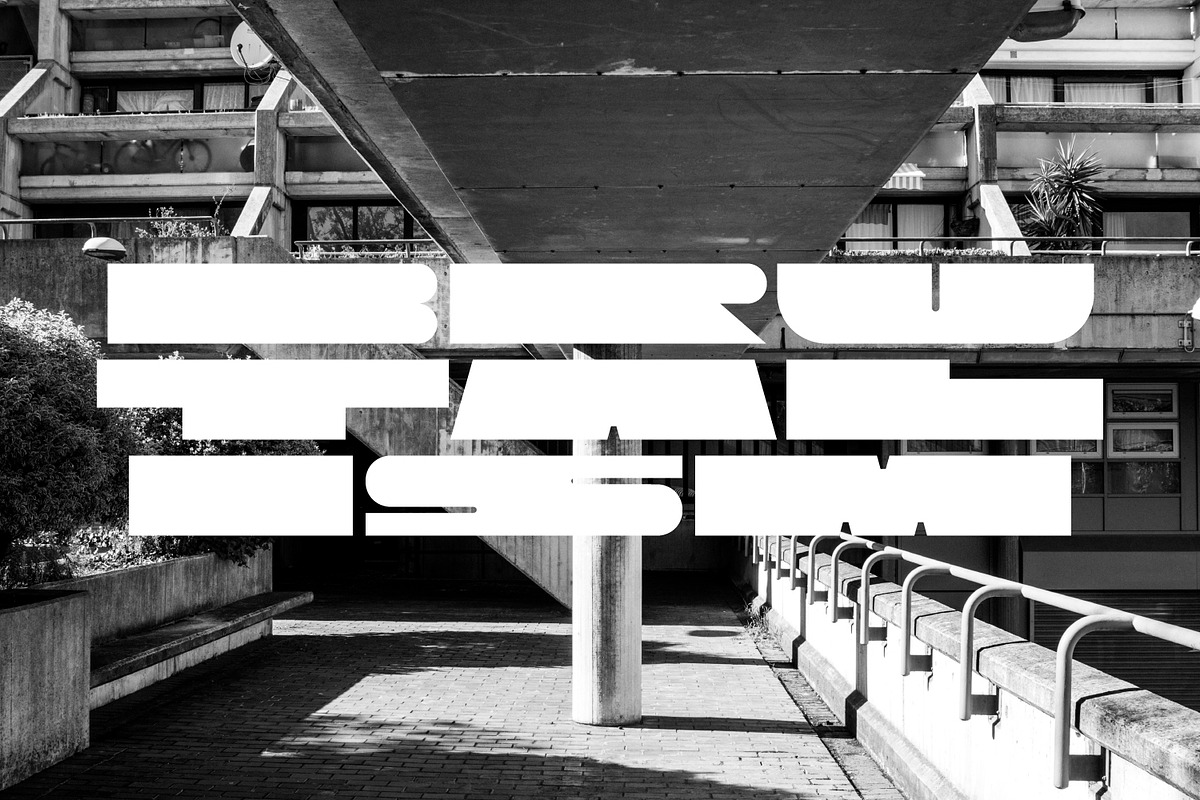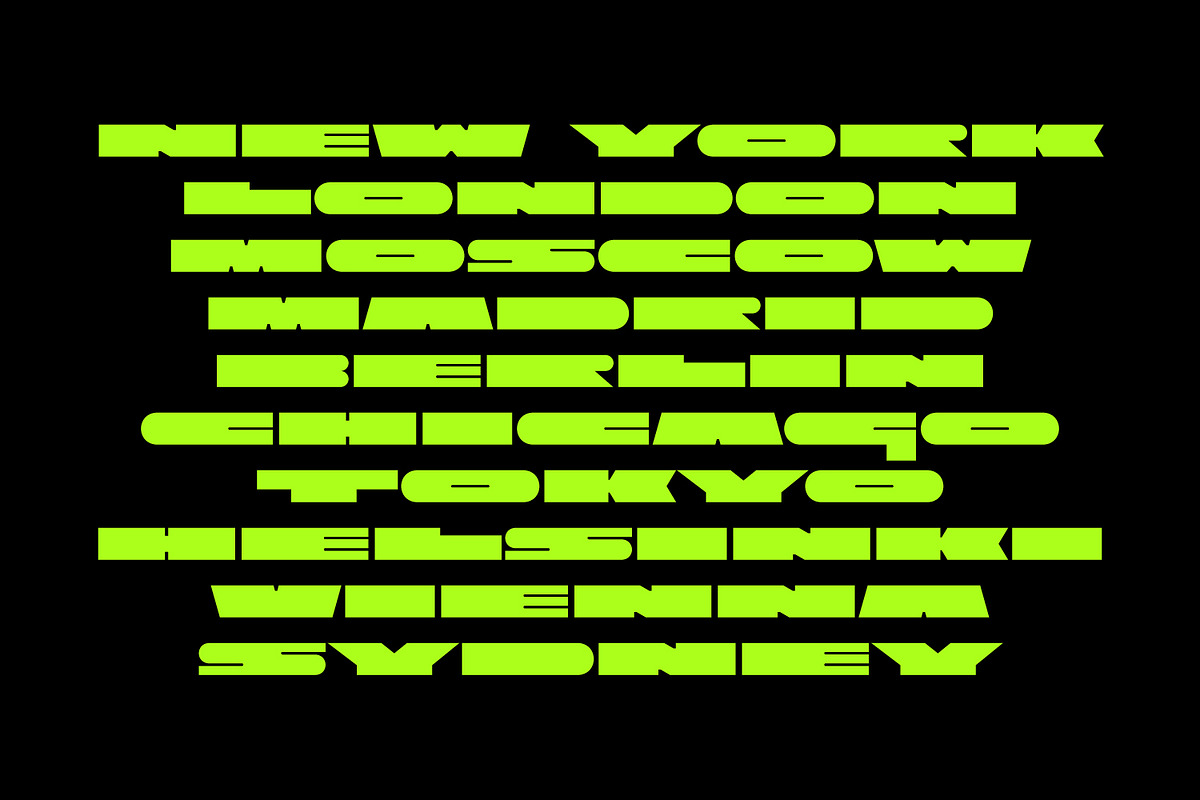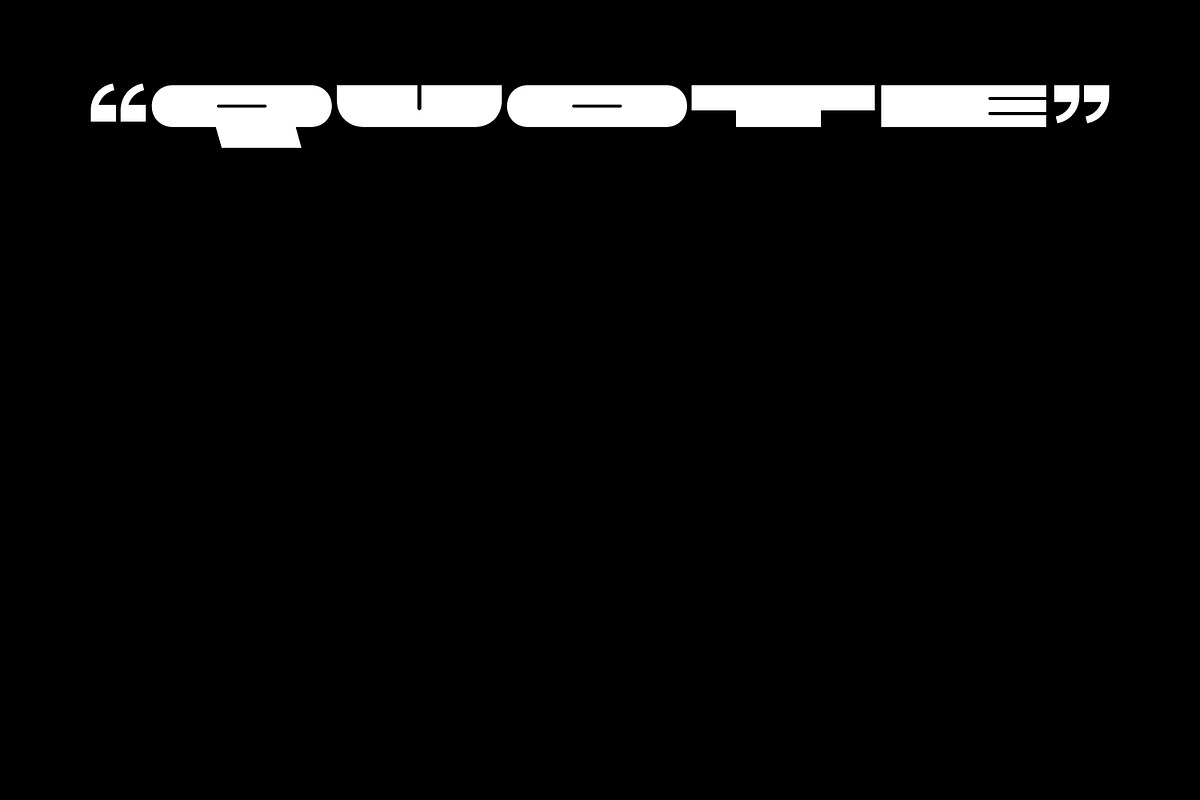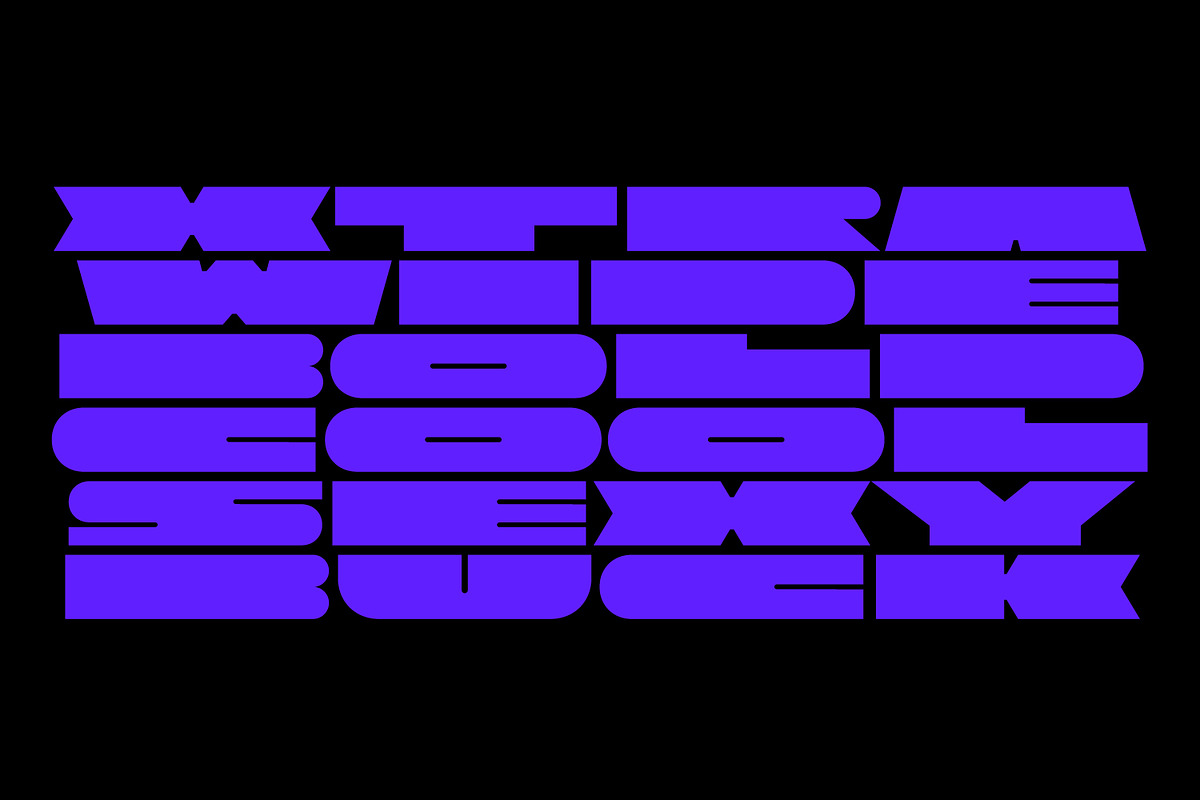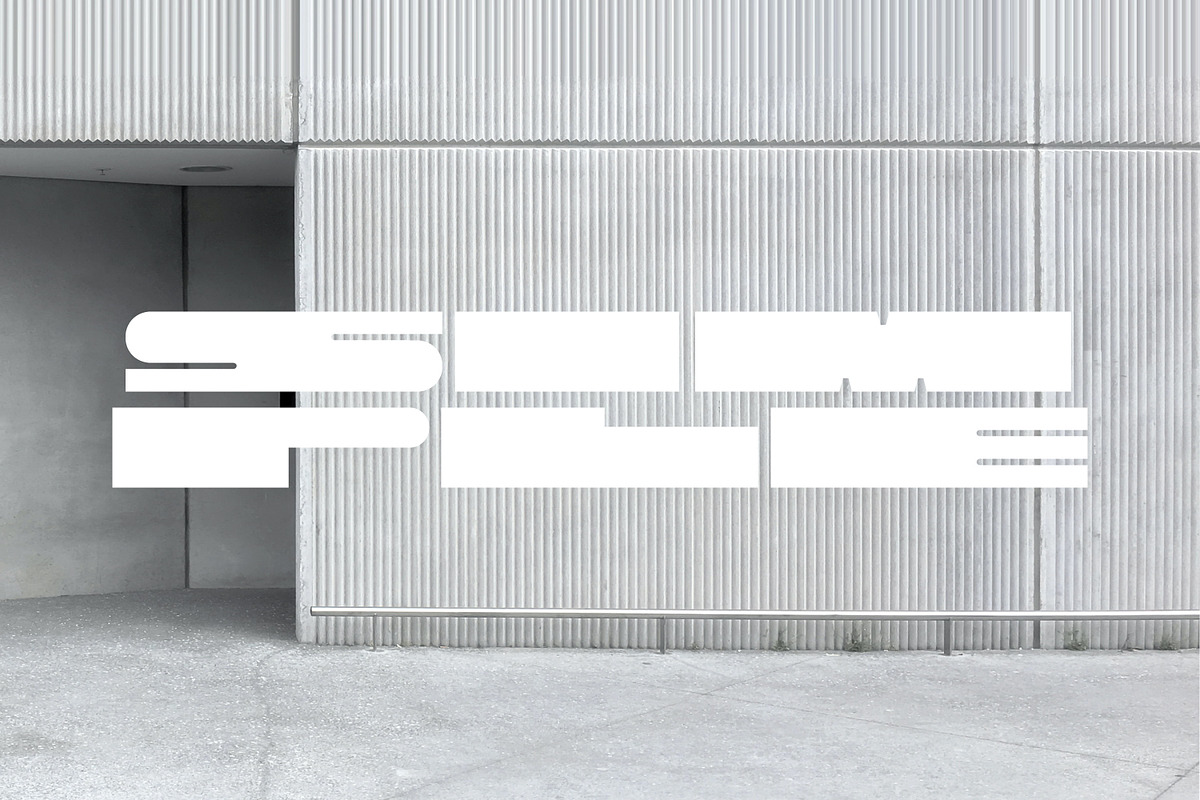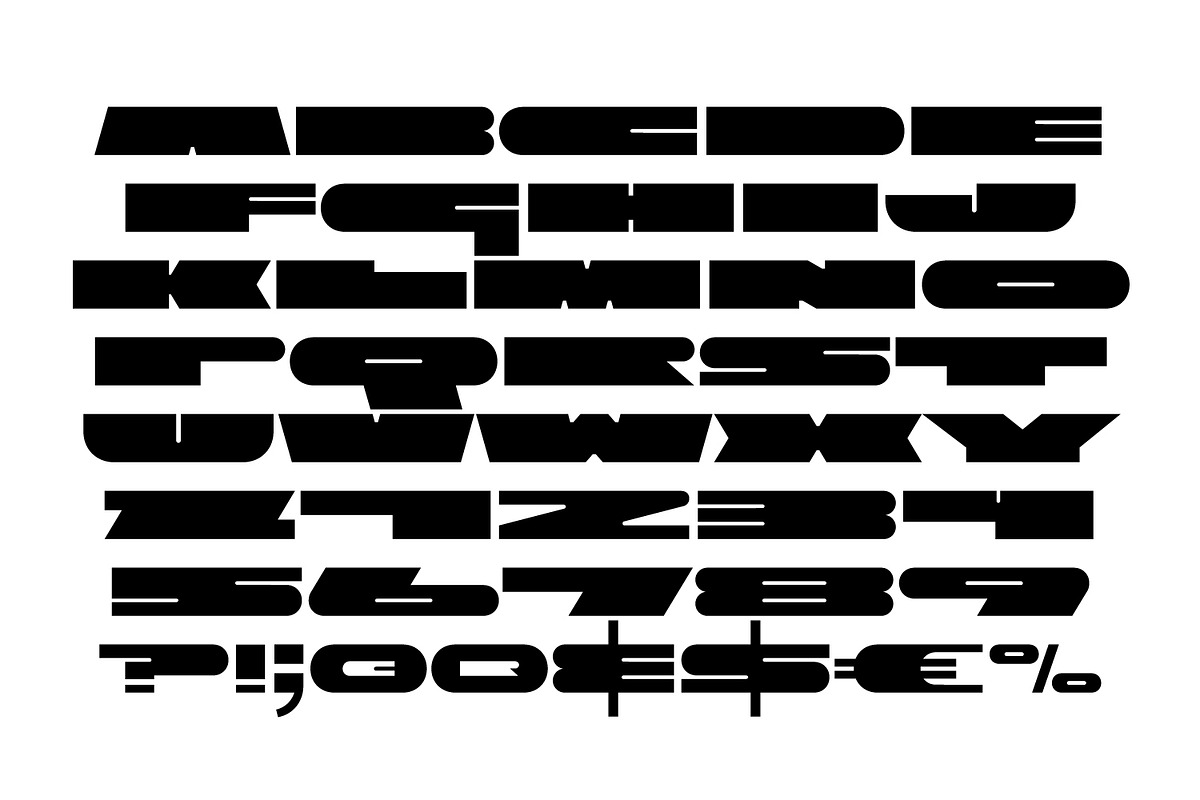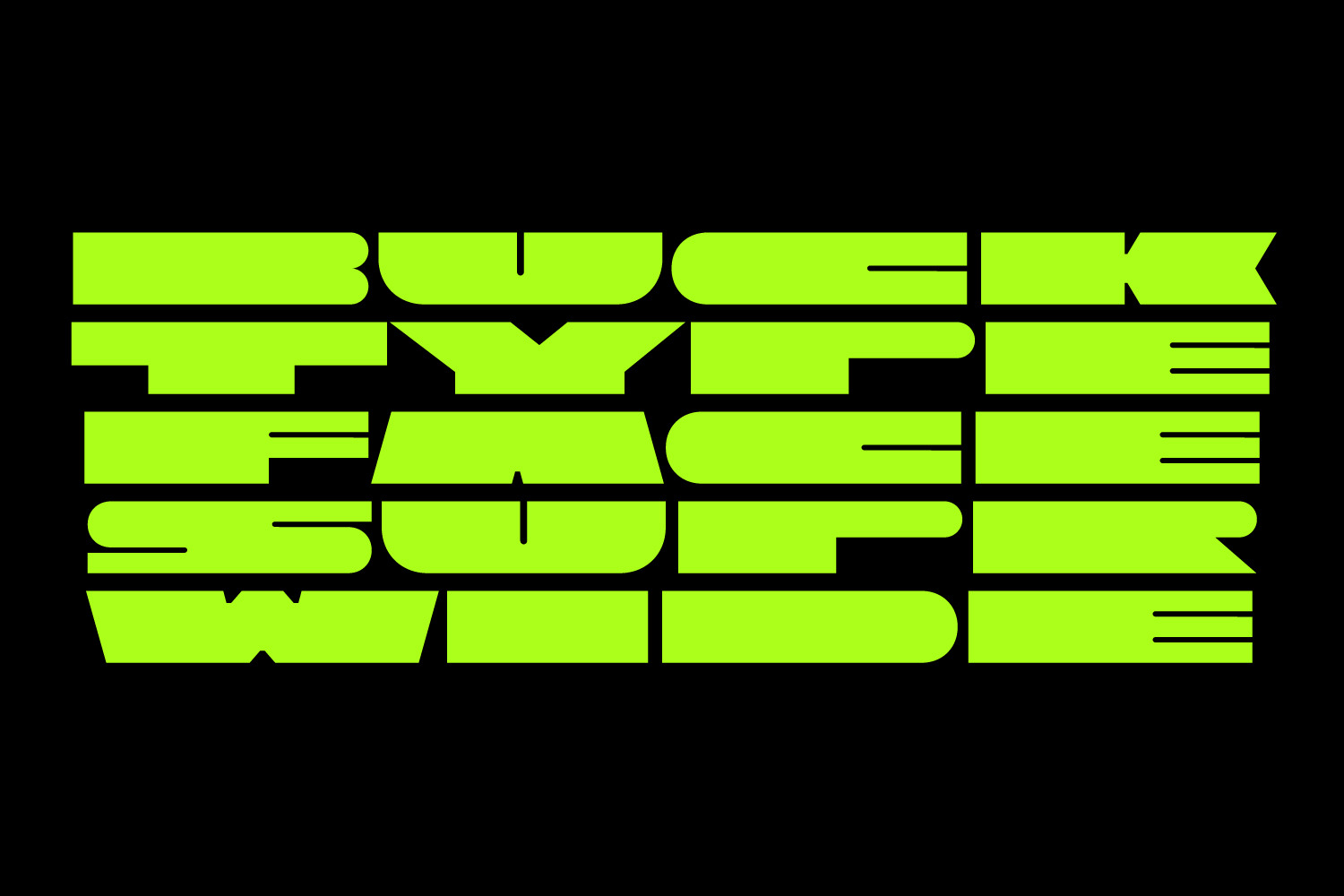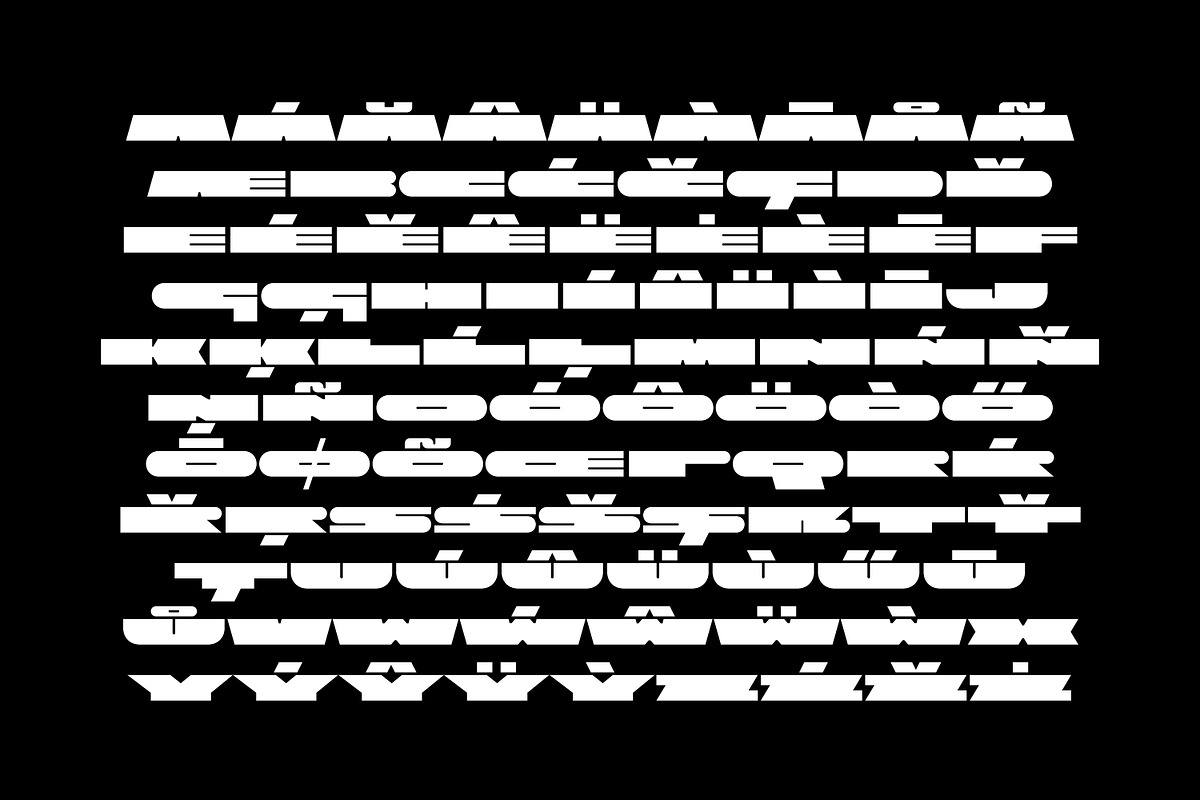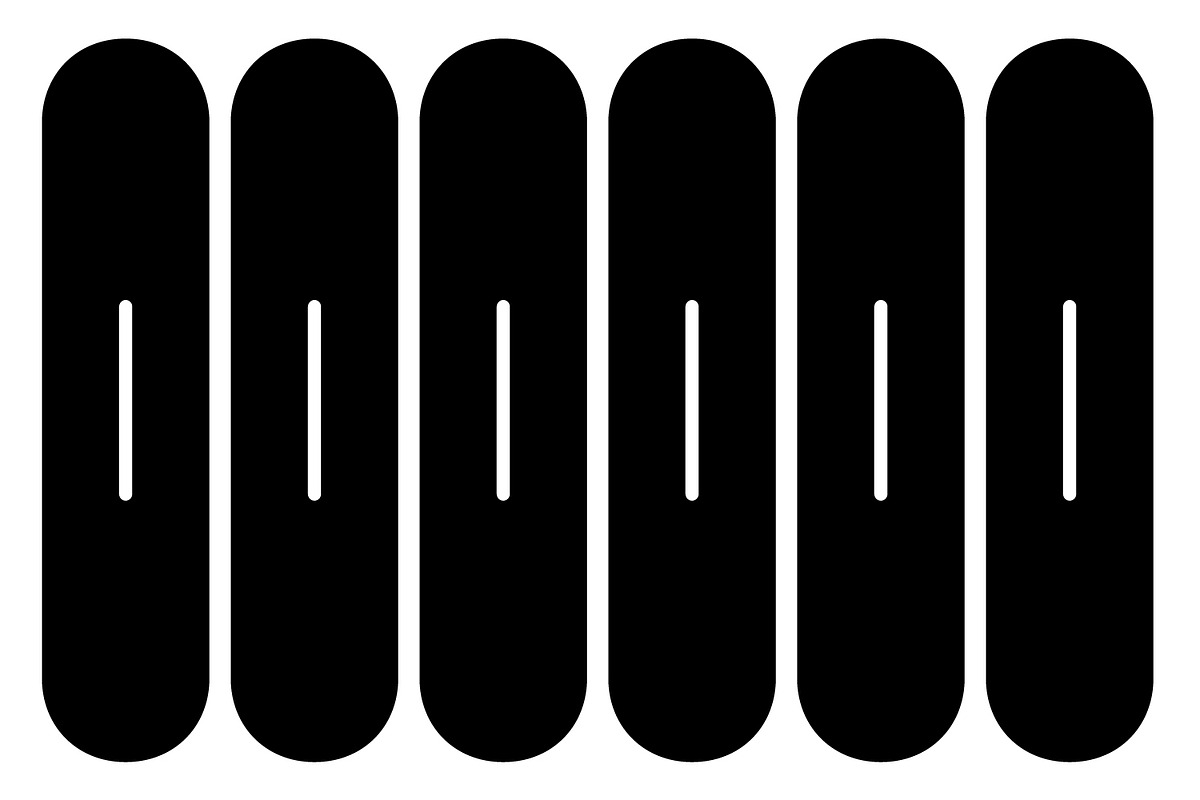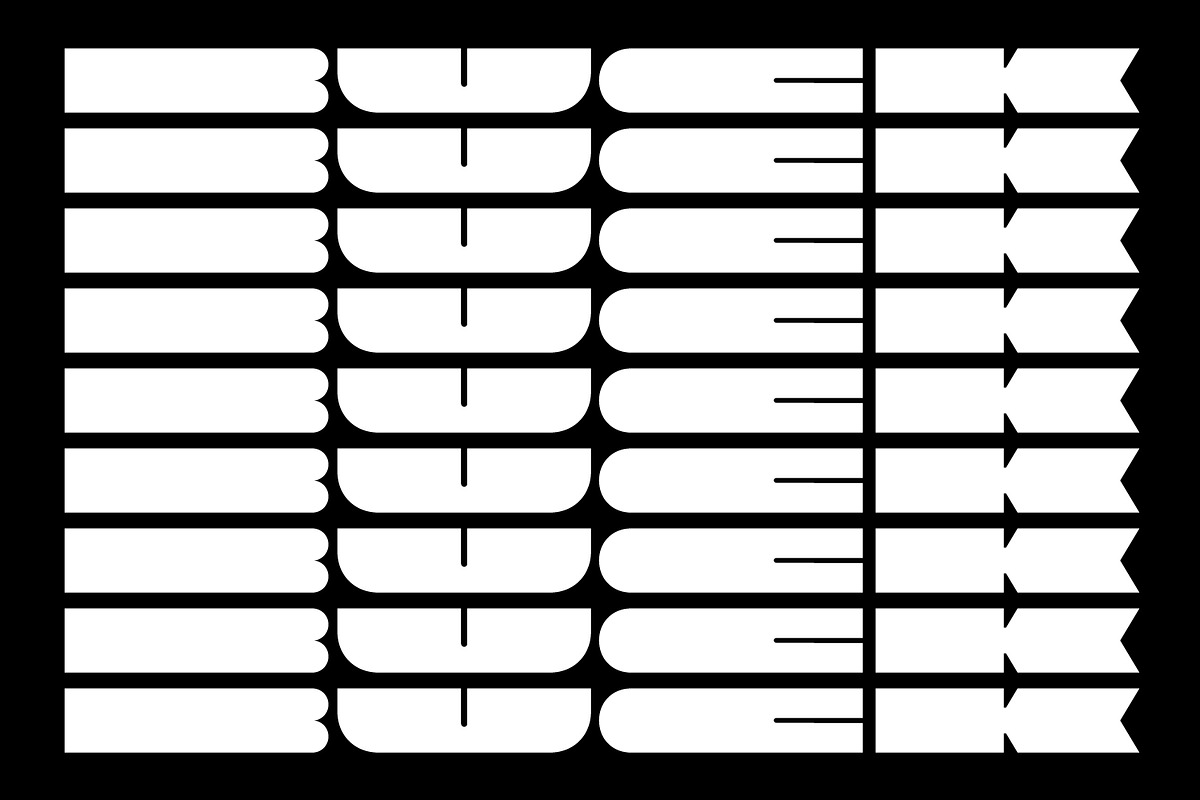
Buck Heavy
BUCK HEAVY is an extremely monumental, architectural and brutal unicase font, designed for maximum visual and emotional impact. Use it in big and really big scales. It's great for headlines, prints, branding, editorial and websites — everything that strives for being really bold, vibrant and super strong and masculine.
- UNICASE
- Brutal and monumental